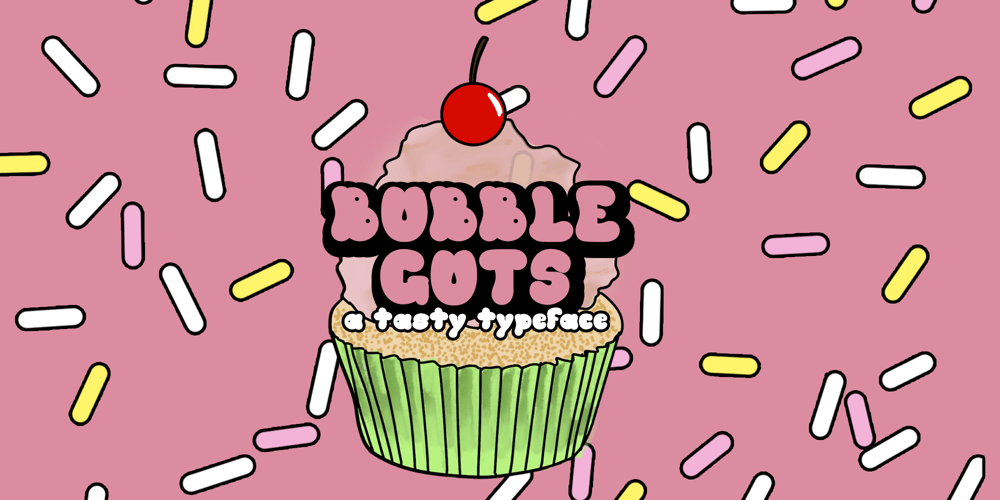
Bubble Guts
Bubble Guts font
Bubble Guts Font Family was designed by Rachel McBride and published by RVM Creative. Bubble Guts contains 4 styles and family package options. Bubble Guts is a whimsical typeface with four fonts. It is one of the few of its kind that has both uppercase and lowercase options, allowing the user versatility and legibility at the same time. Its four styles, Normal, Italic, Shadow, and Extrude, allow for the user to create a bevy of visual effects. It has a retro feel that makes it great for animations, invites, branding, and social media!What you get Bubble Guts Regular Bubble Guts Italic Bubble Guts Shadow Bubble Guts Extrude This typeface supports 438 characters, and it supports most western languages!Layer these fonts to get all types of cool effects! Extrude is perfect for this; it allows for the user to fit the “Bubble Guts Regular” characters on top and create layers.